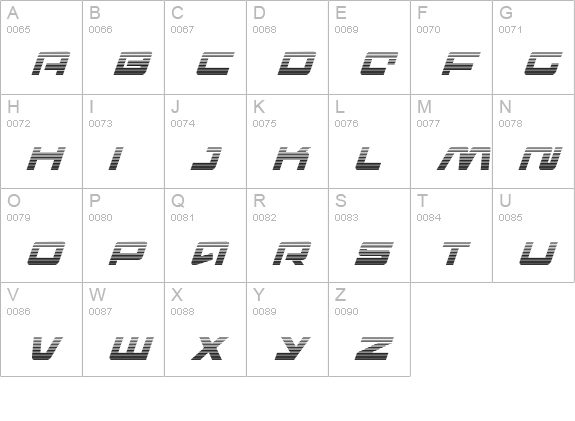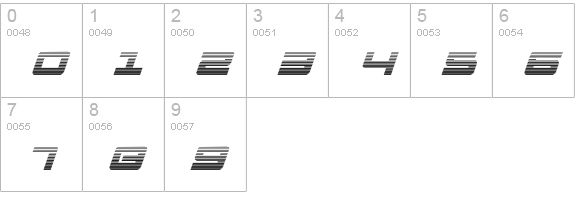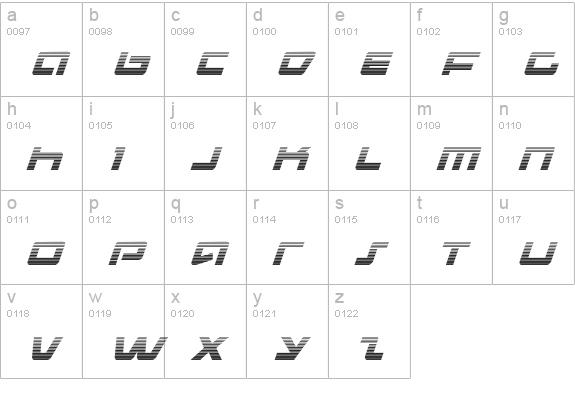
Pulse Rifle Gradient Italic is a distinctive, italic variant in the Pulse typeface family \xE2\x80\x94 well suited to design and typography projects.
Pulse Rifle Gradient Italic font is a modern and sleek typeface that exudes a sense of energy and sophistication. Its gradient effect adds a dynamic touch to any design project, making it stand out from the crowd. The italic style lends a touch of elegance and flair to your text, perfect for creating eye-catching headlines or stylish branding. This unique font is available for free download at FontsMarket.com, making it easily accessible for designers and creatives looking to add a touch of modernity to their work. Whether you're designing a poster, website, or social media graphics, Pulse Rifle Gradient Italic font is sure to make a bold statement and leave a lasting impression on your audience. Upgrade your design projects with this striking and versatile typeface today!